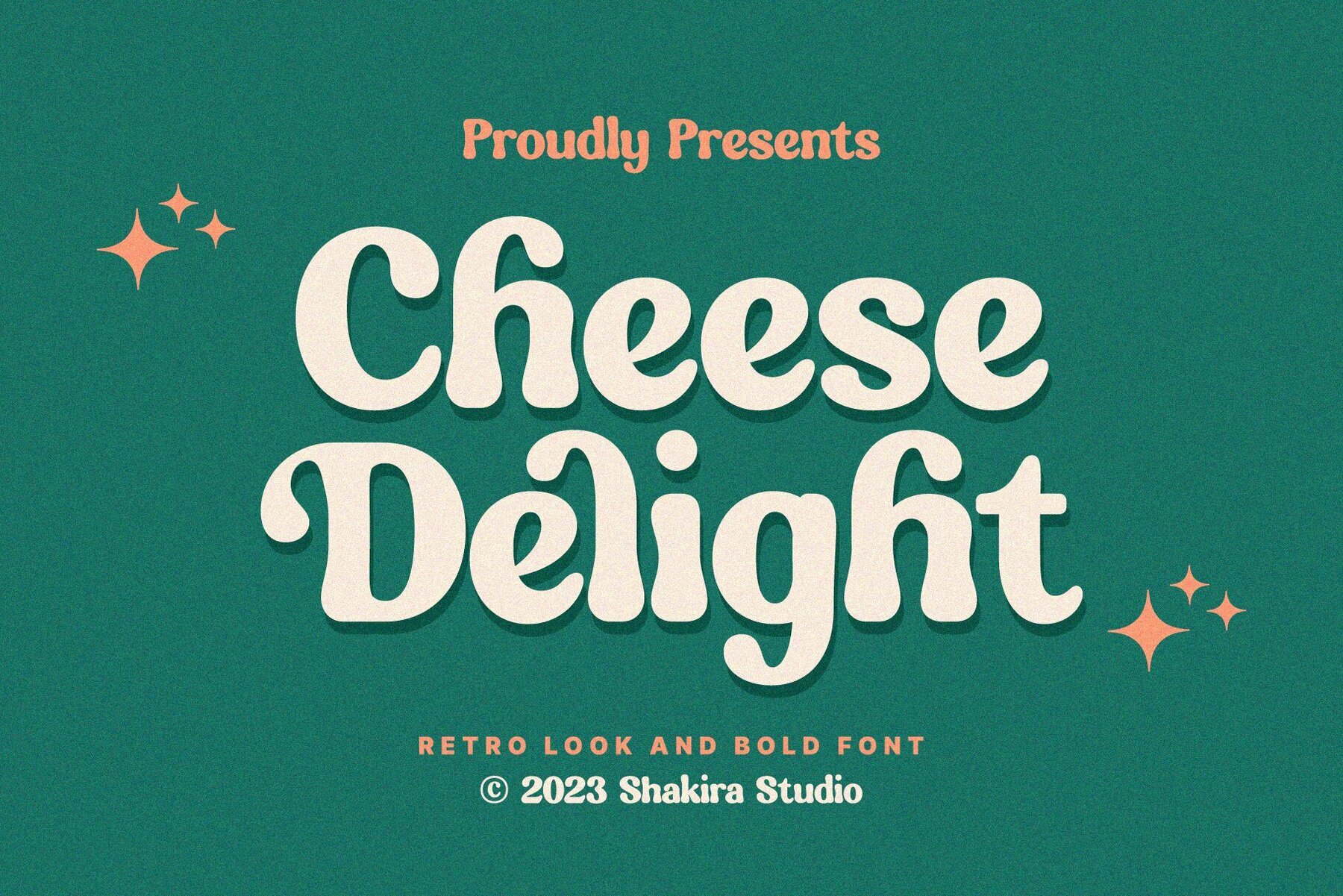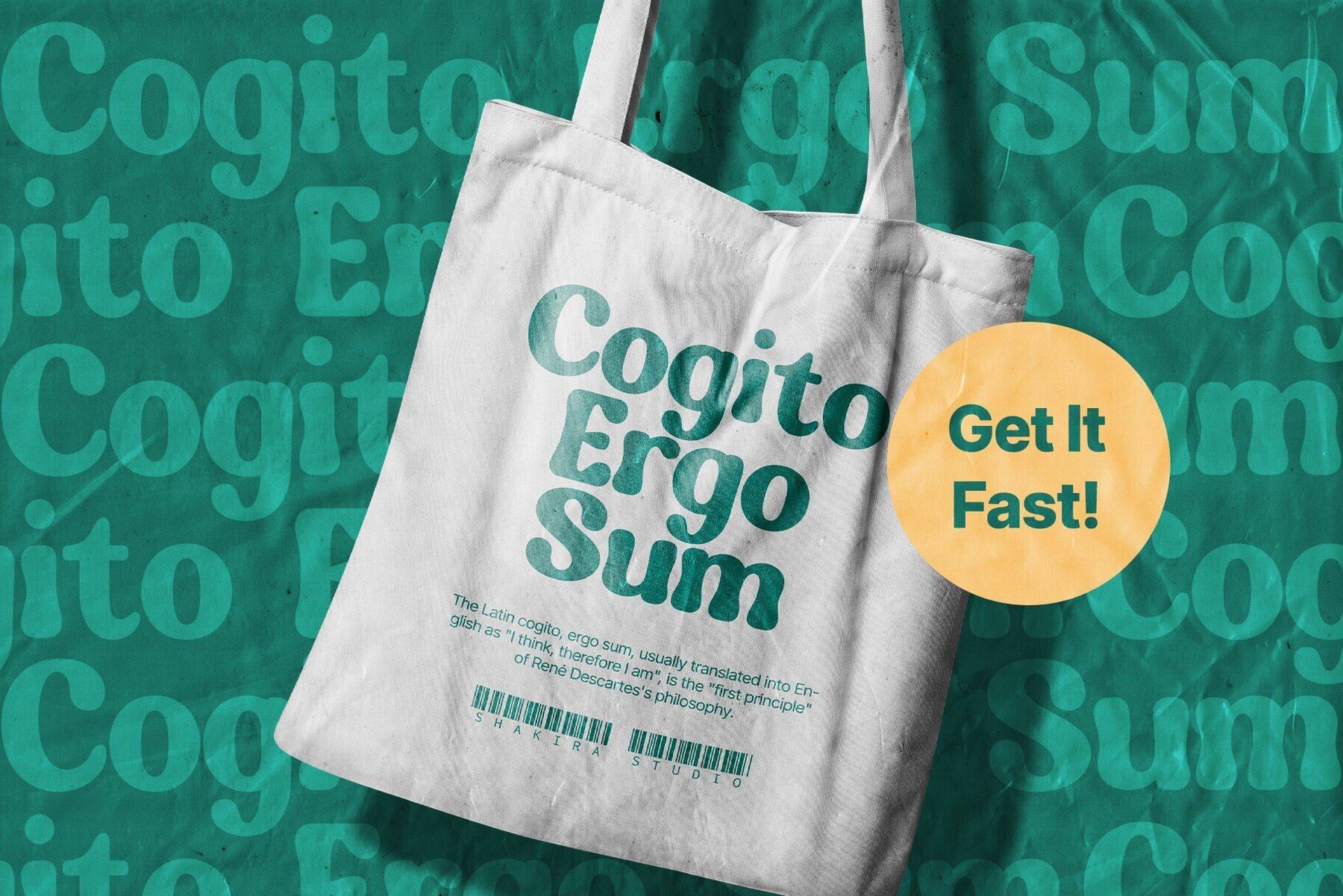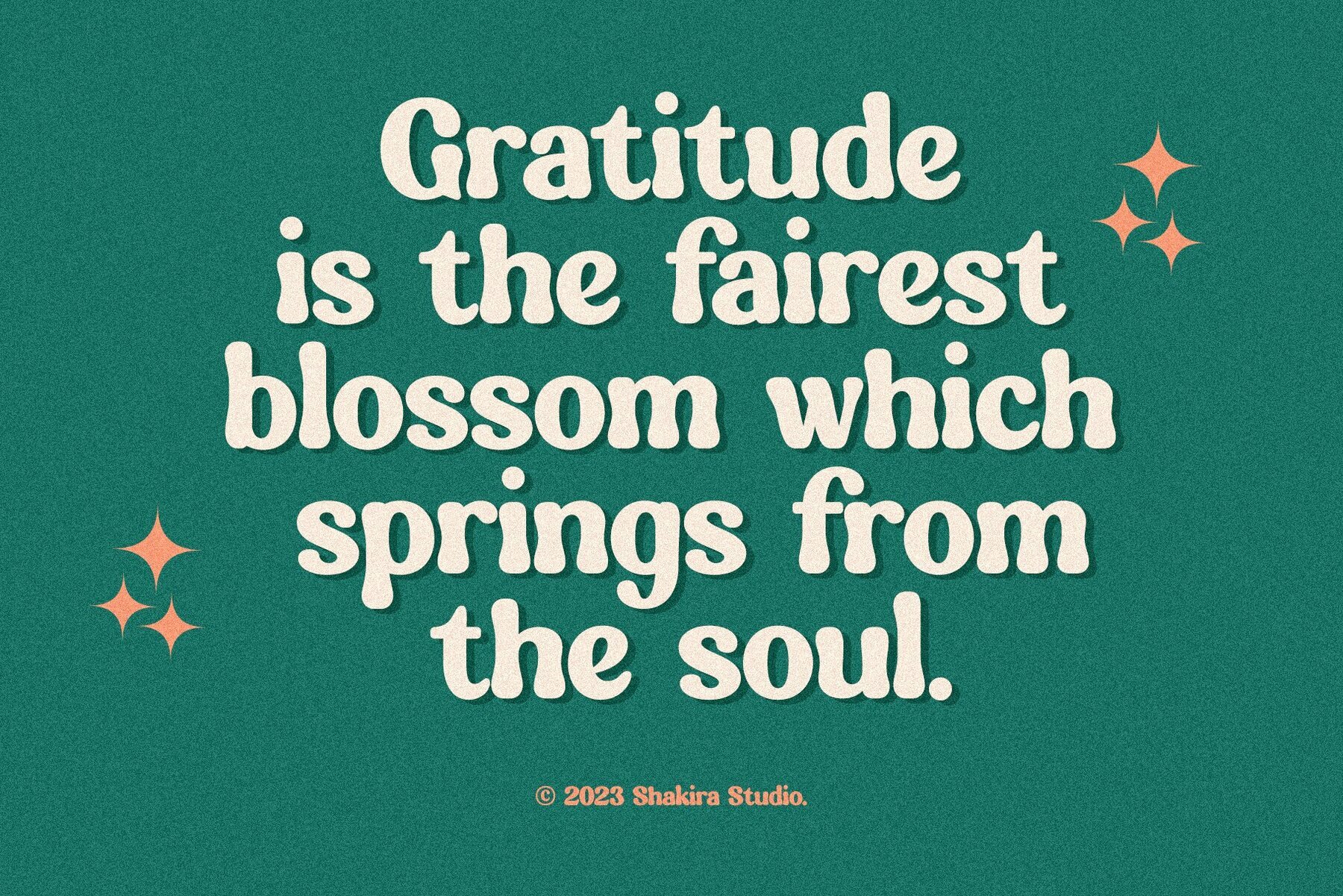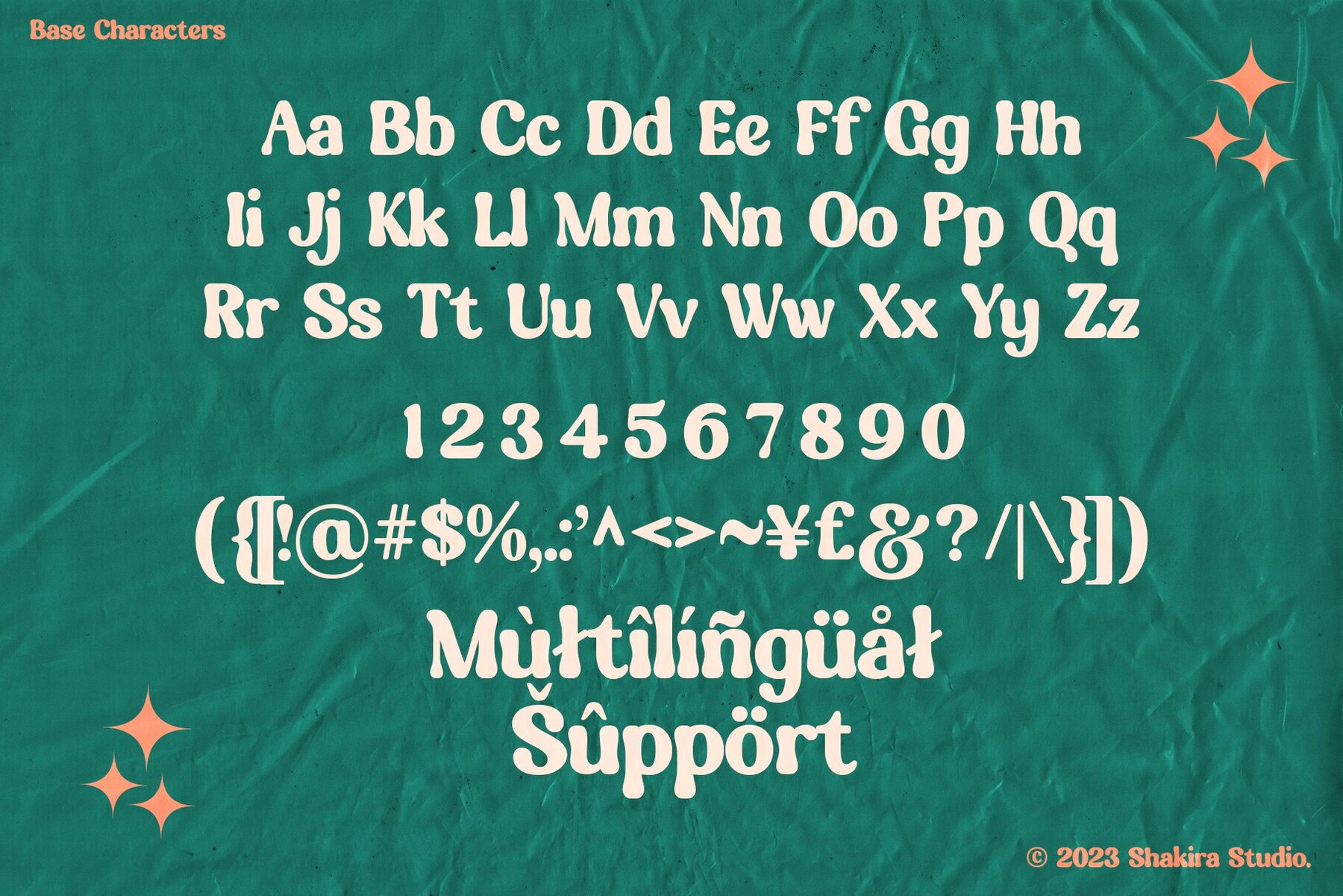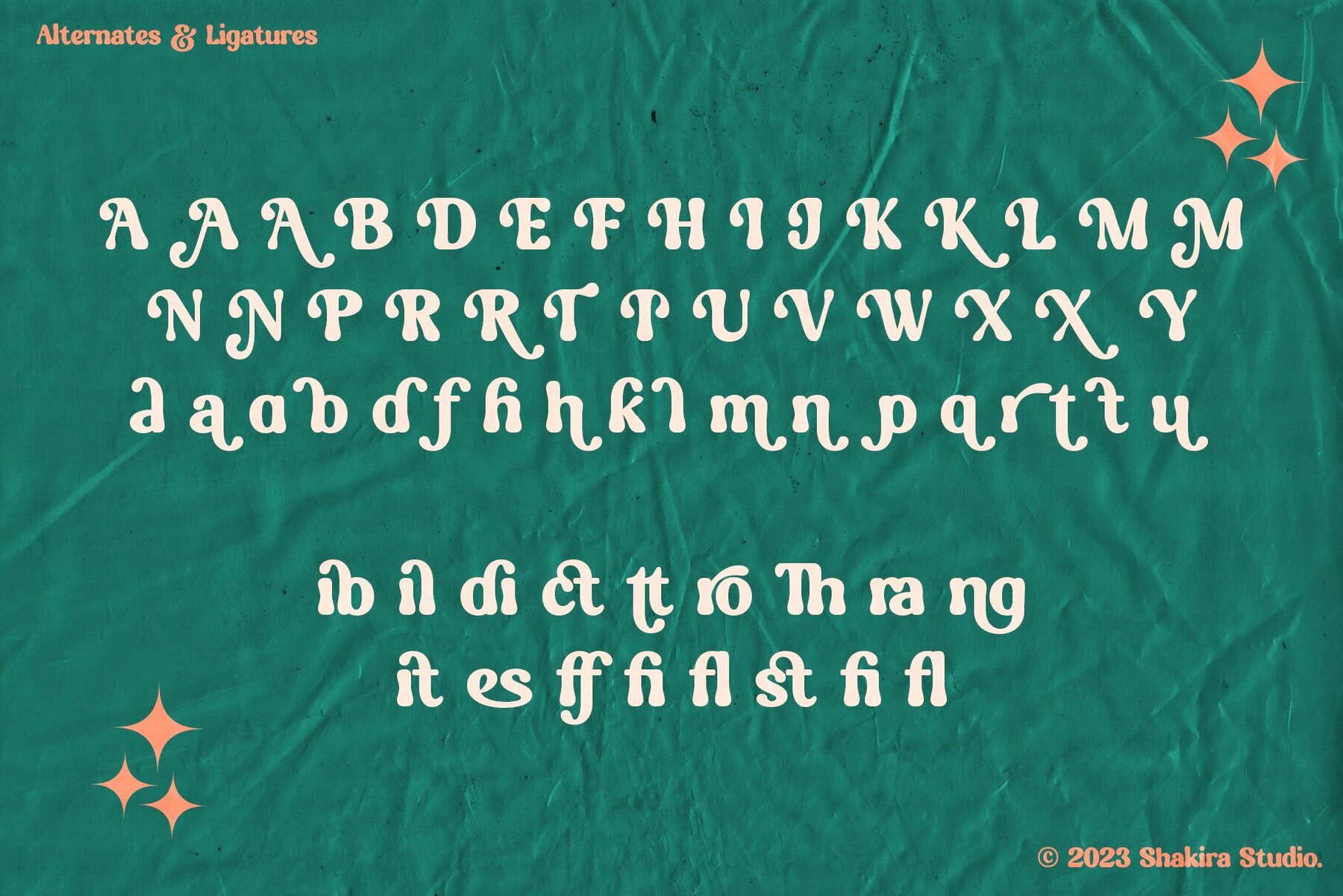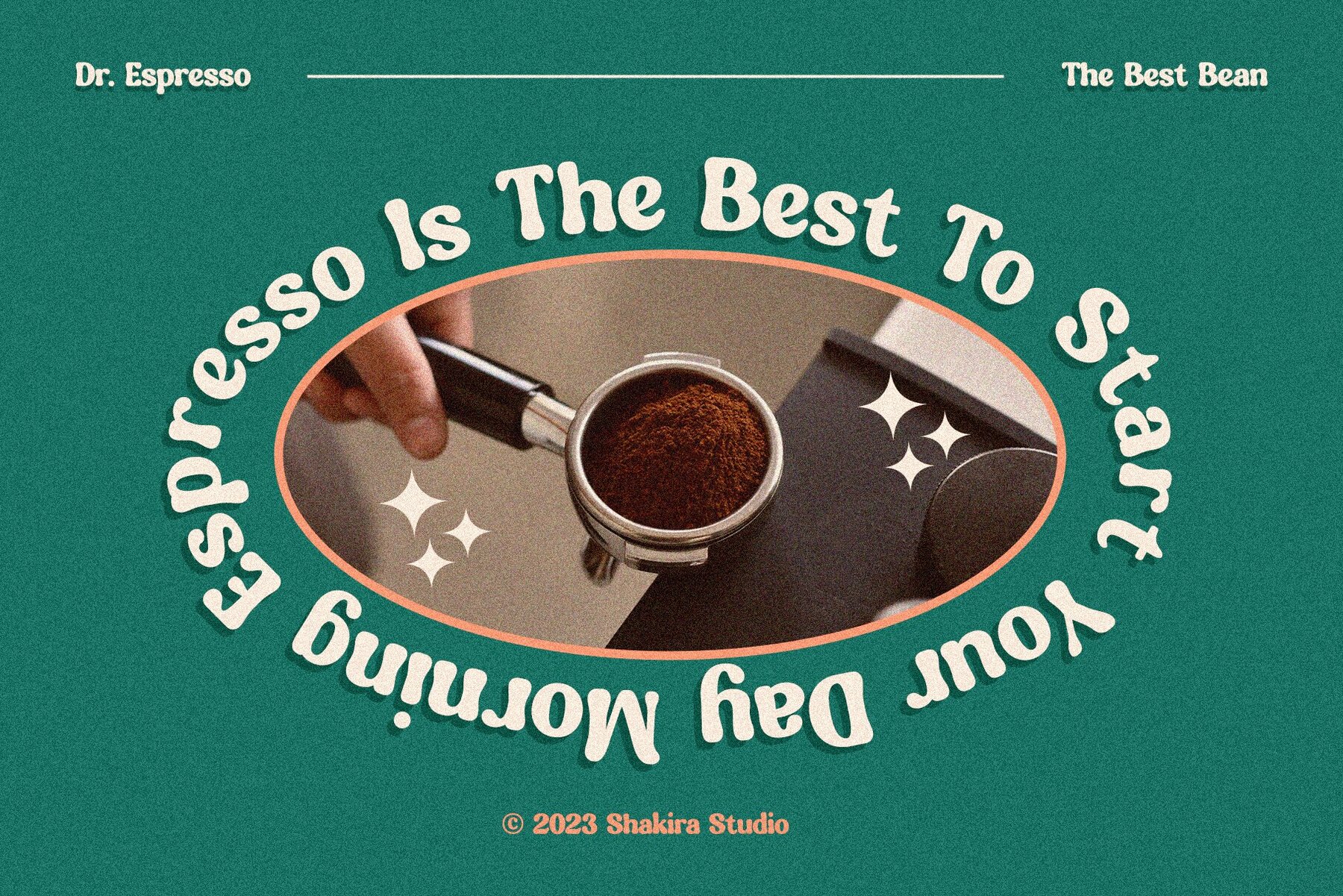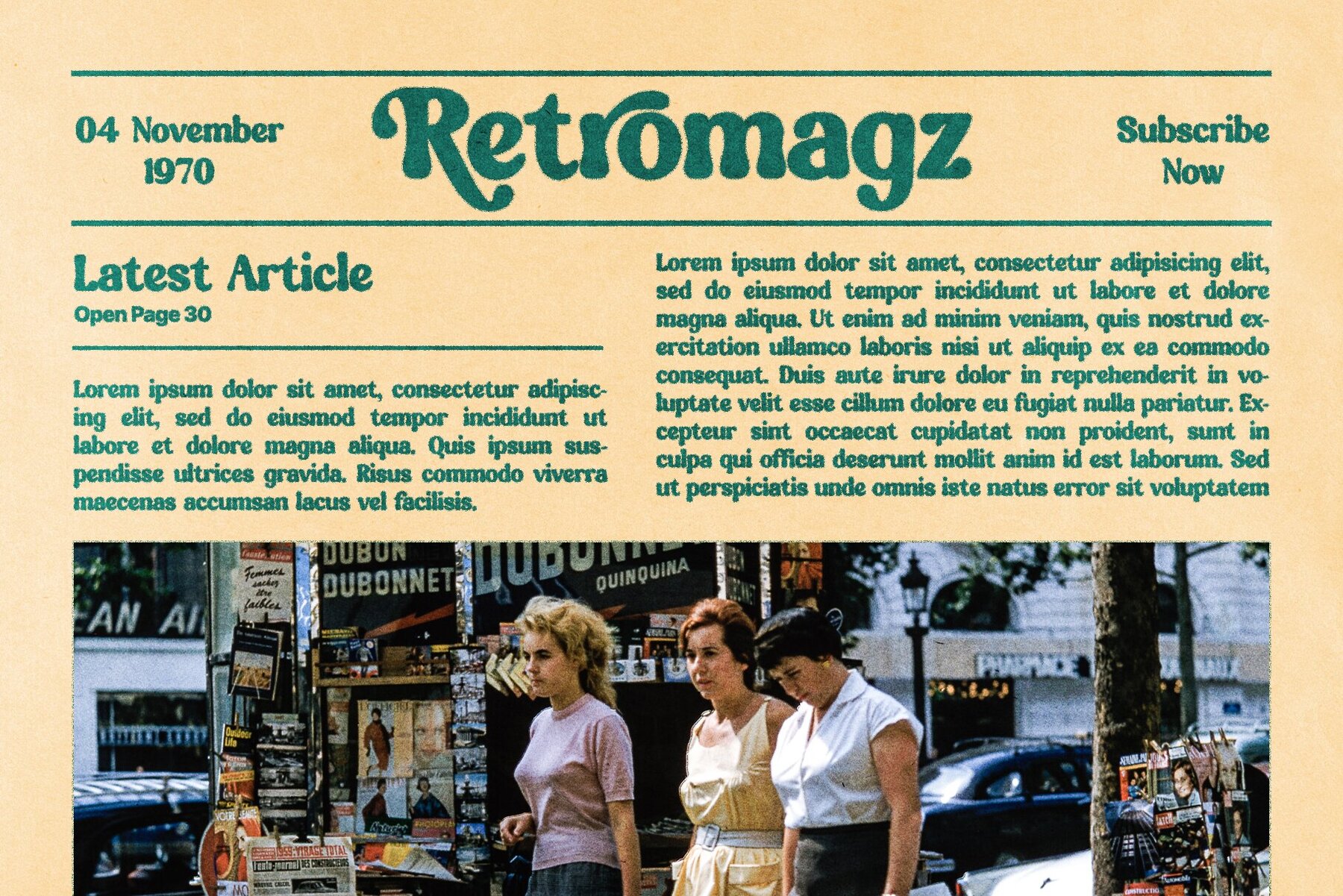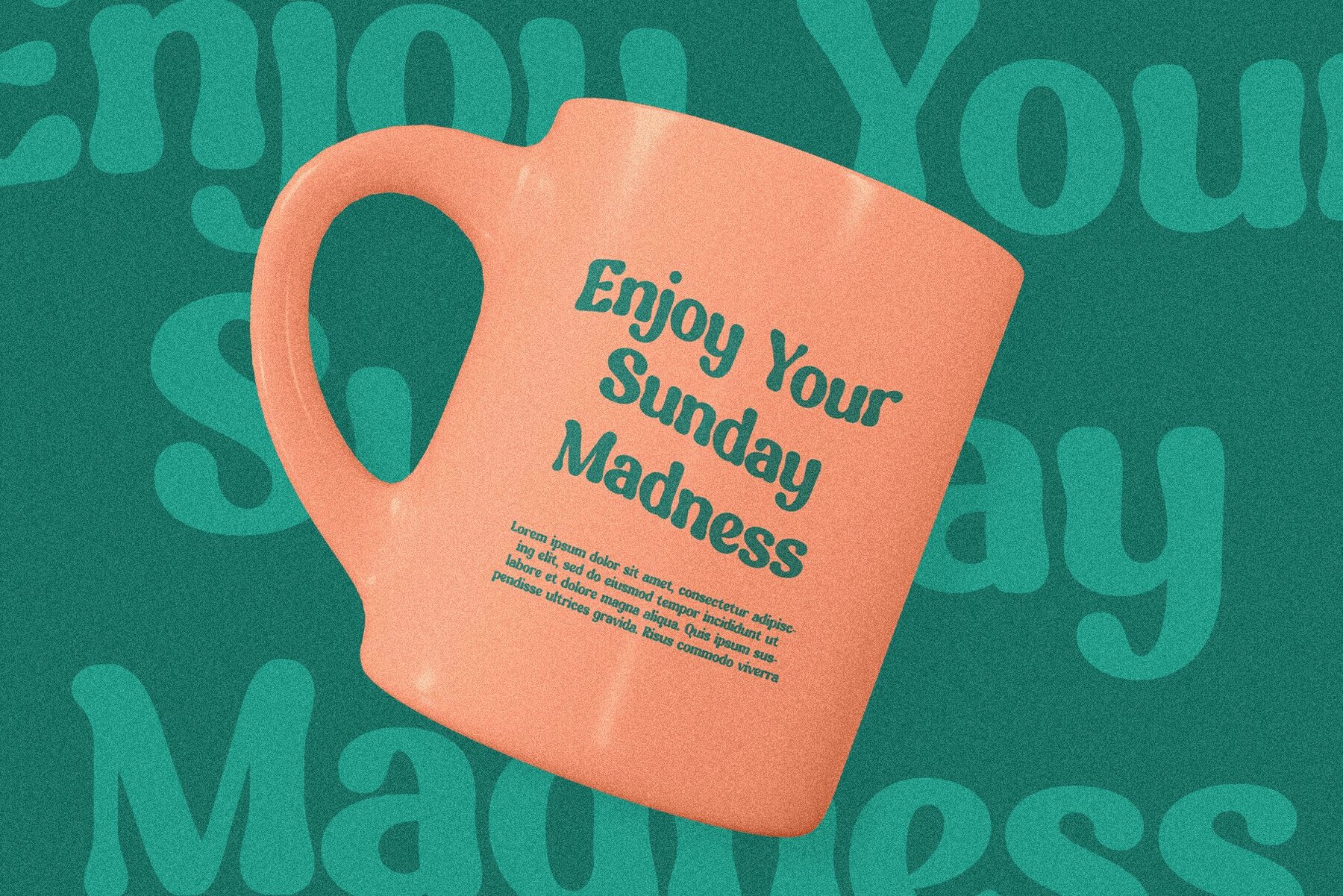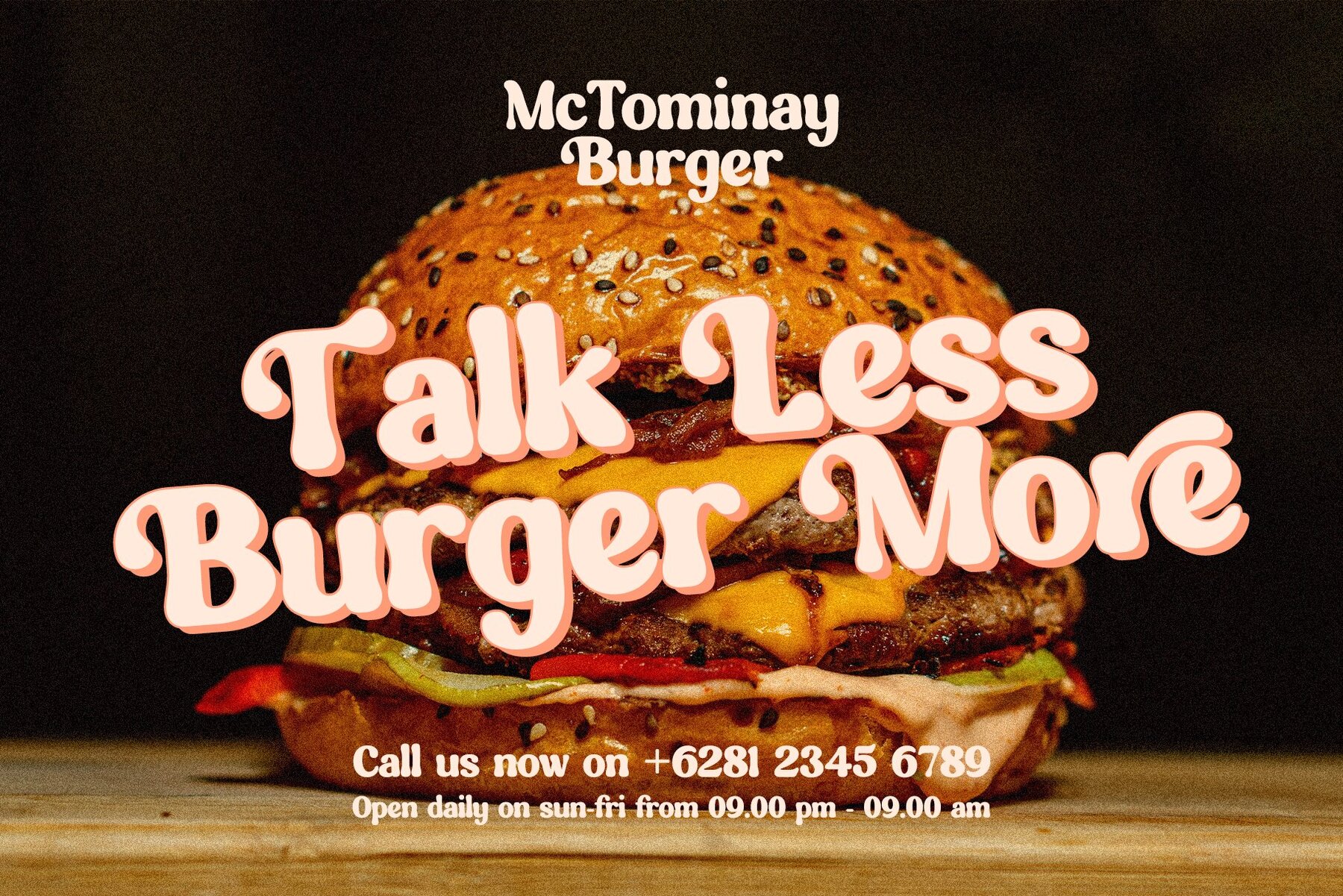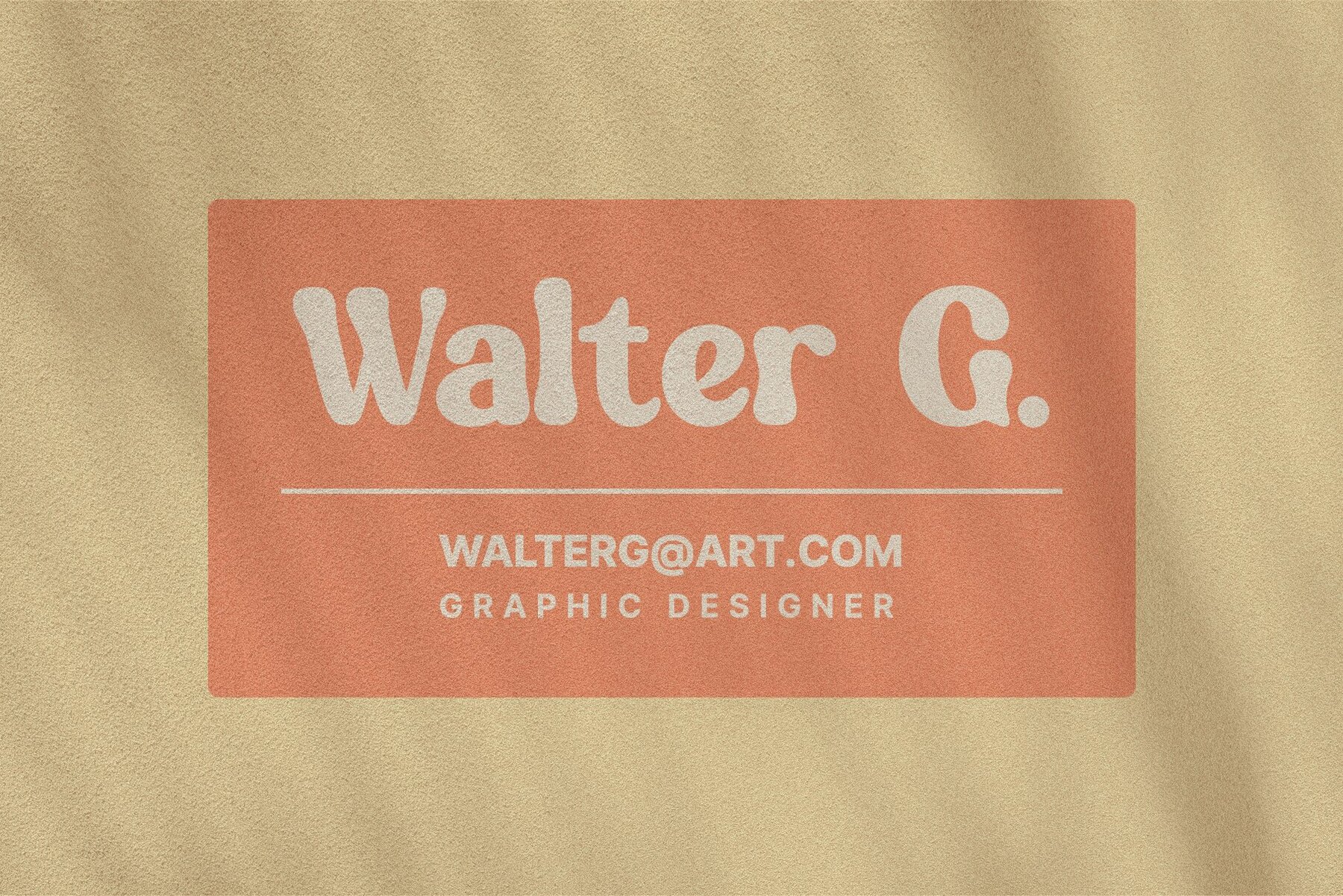
Cheese Delight Font
Cheese Delight Regular
Experience the charm of vintage typography with Cheese Delight by Shakira Studio. This retro serif font combines classic aesthetics with modern adaptability, making it perfect for a wide range of creative projects. Transform your designs with the timeless appeal of Cheese Delight, where retro meets refinement. Perfect for those looking to add a touch of class to their creative work.Cheese Delight: A Retro Serif with Elegance